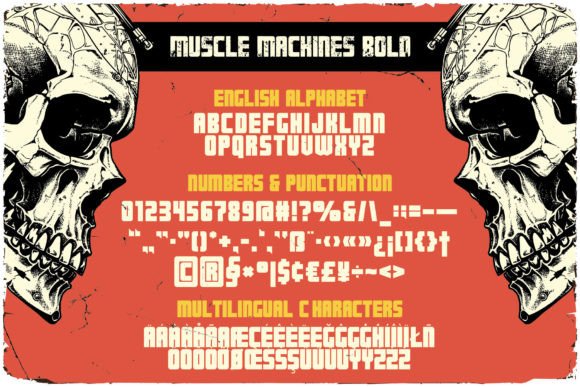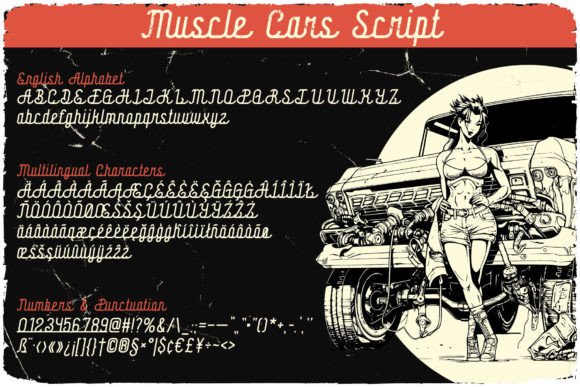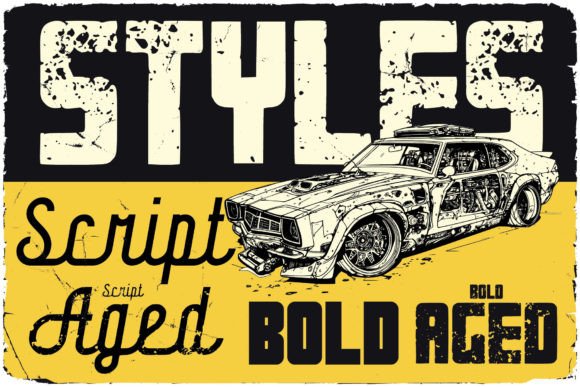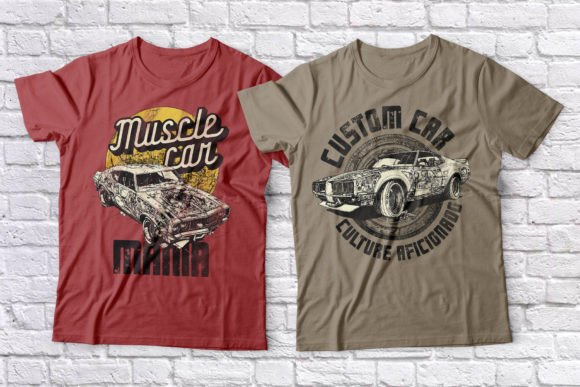
Muscle Cars Font
Introducing vintage label font duo named Muscle Cars. These two fonts have additional characters and multilingual support. Bold and Script fonts have two styles: Clean and Aged. This font will look good on any vintage-styled design like a poster, T-shirt, label, logo, etc.